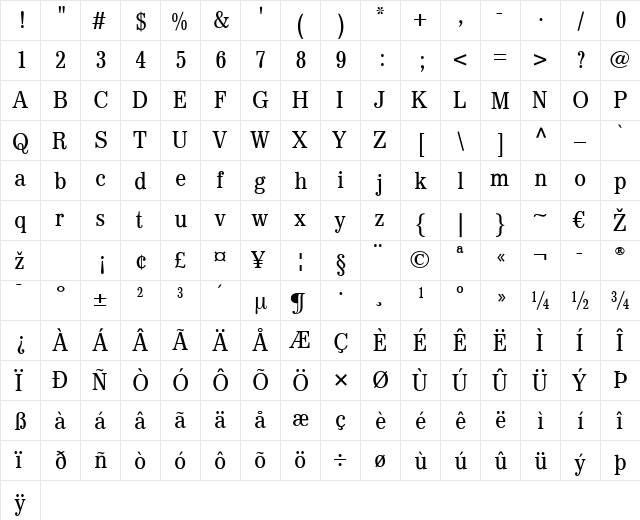
DigiAntiqua LT LightCondensed Regular
Design Context for DigiAntiqua LT LightCondensed Typeface
DigiAntiqua LT LightCondensed is a composed and adaptable typeface that performs quietly and consistently across a wide range of design contexts. The delicate stroke weight brings airiness and refinement to layouts. Its narrow stance lets it pack a punch even in space-constrained designs.